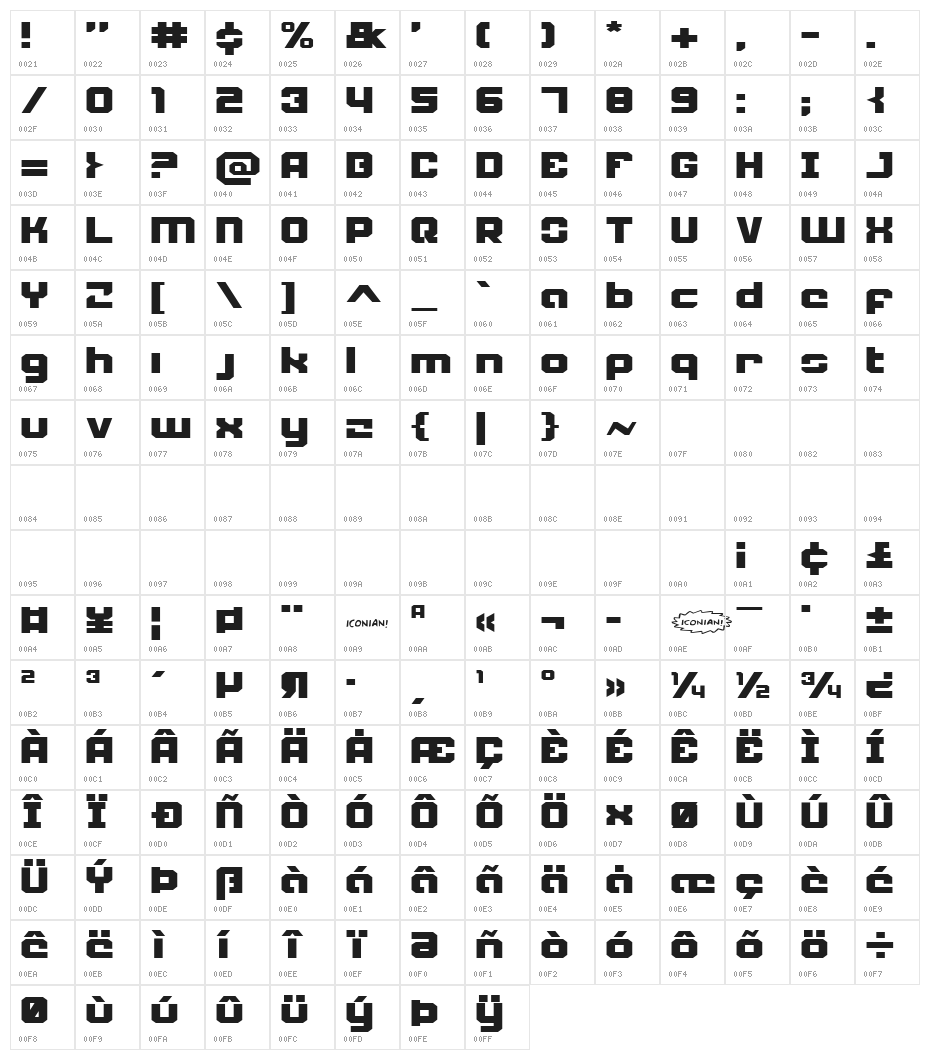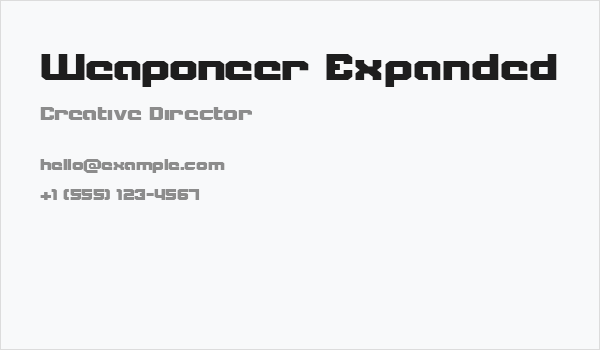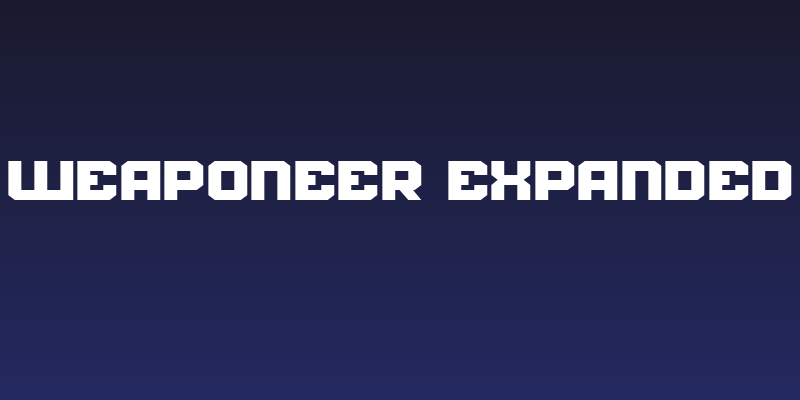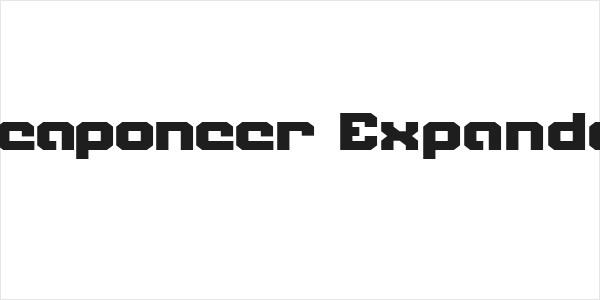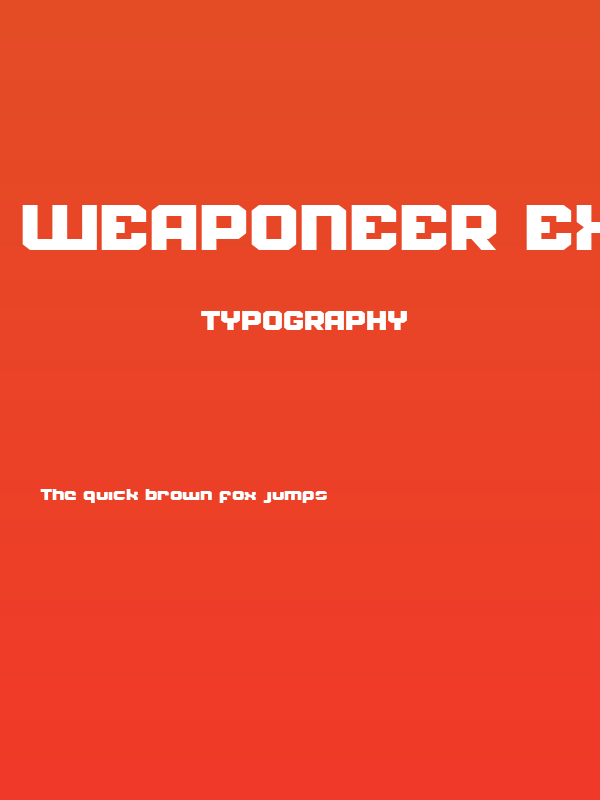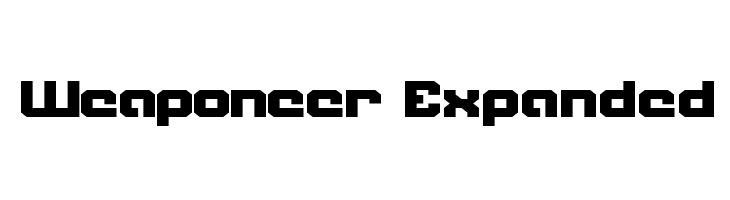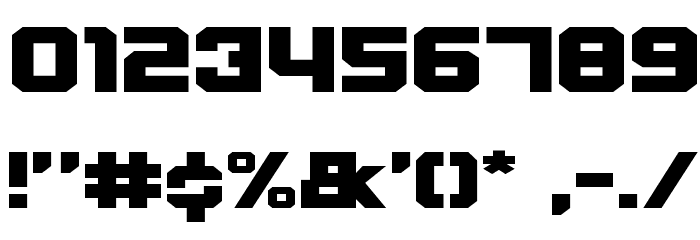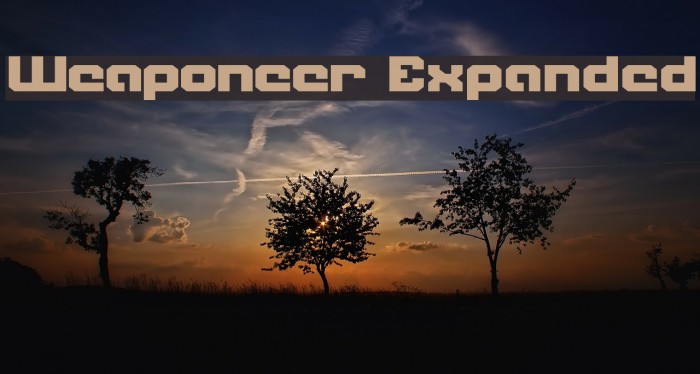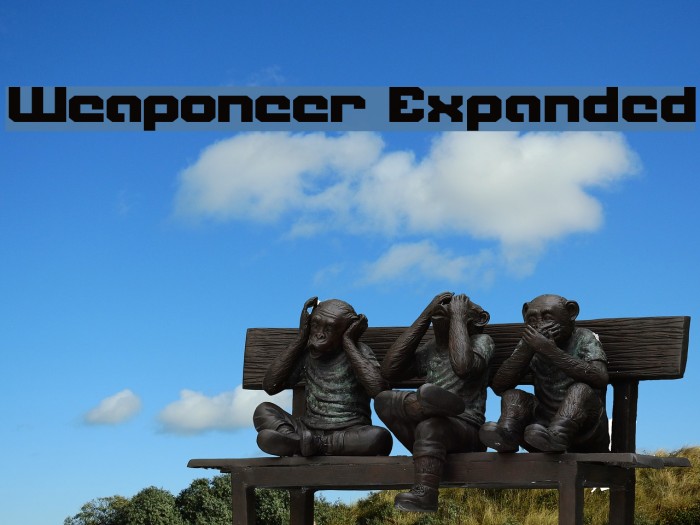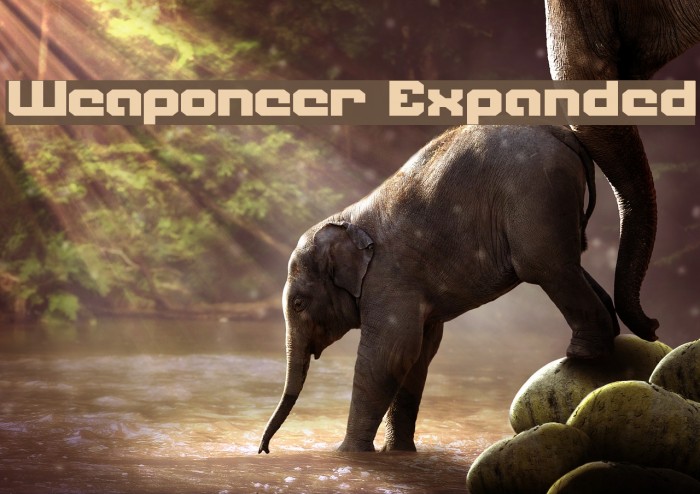
Weaponeer Expanded Font
Weaponeer Expanded Description
This font features a bold, geometric style with a distinctly modern and futuristic appearance. The characters are constructed with sharp, angular edges and a blocky structure, giving it a strong and commanding presence. The uppercase and lowercase letters maintain a consistent width, contributing to a uniform and cohesive look. The numbers and special characters follow the same design principles, ensuring a seamless integration across all text elements. This font's expanded width and solid form make it ideal for impactful headlines and attention-grabbing designs.
| Proposed Projects | Ideal for video game titles, tech branding, sci-fi posters, and digital interfaces. |